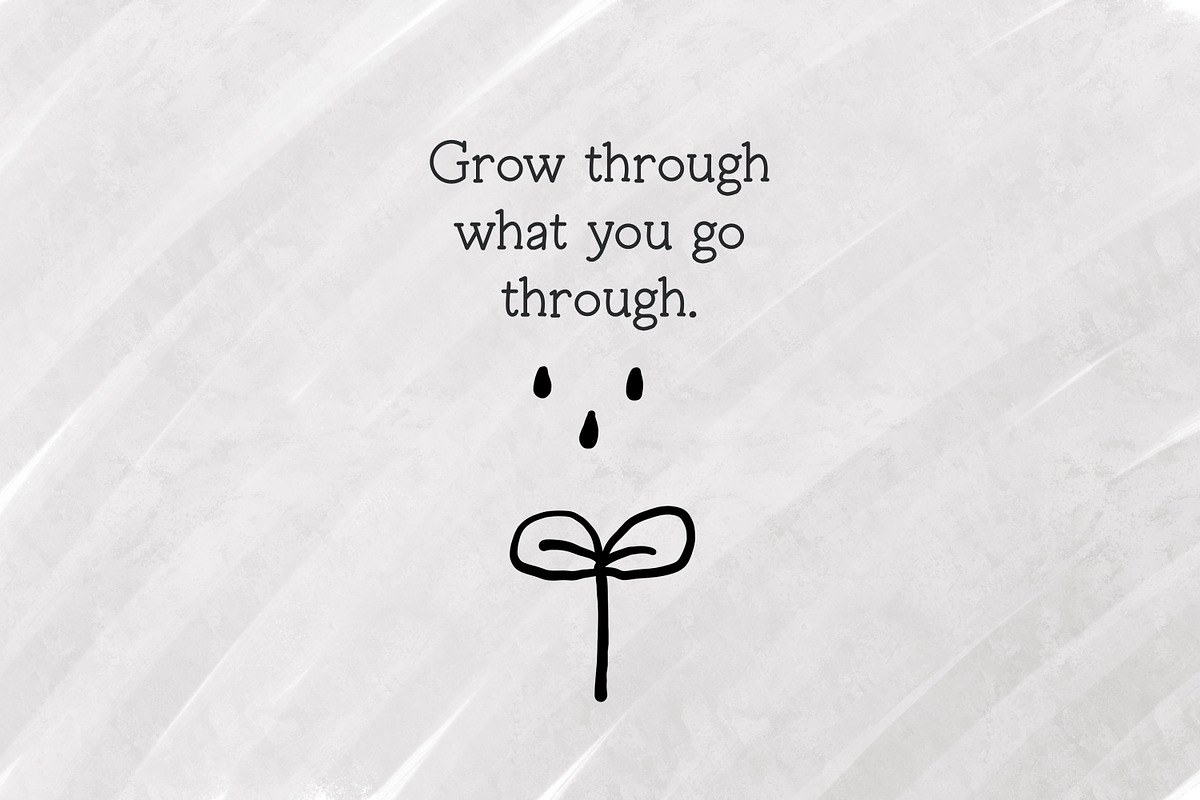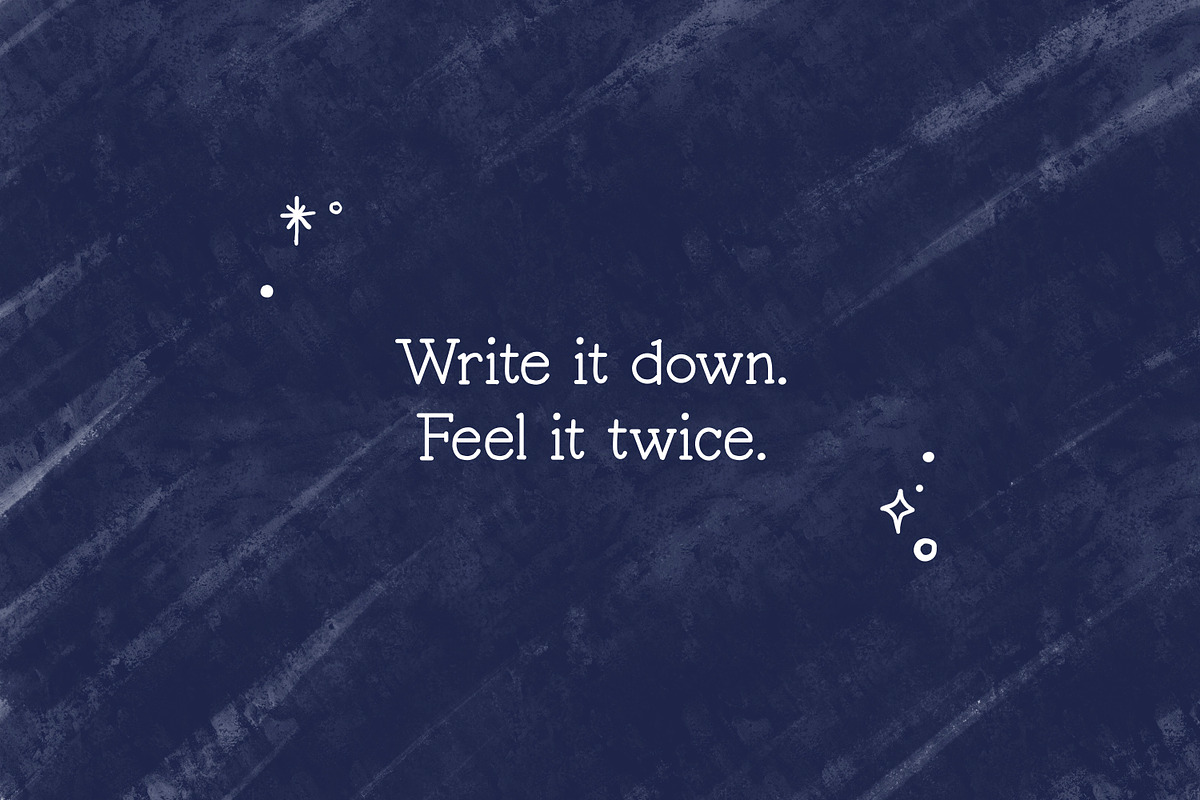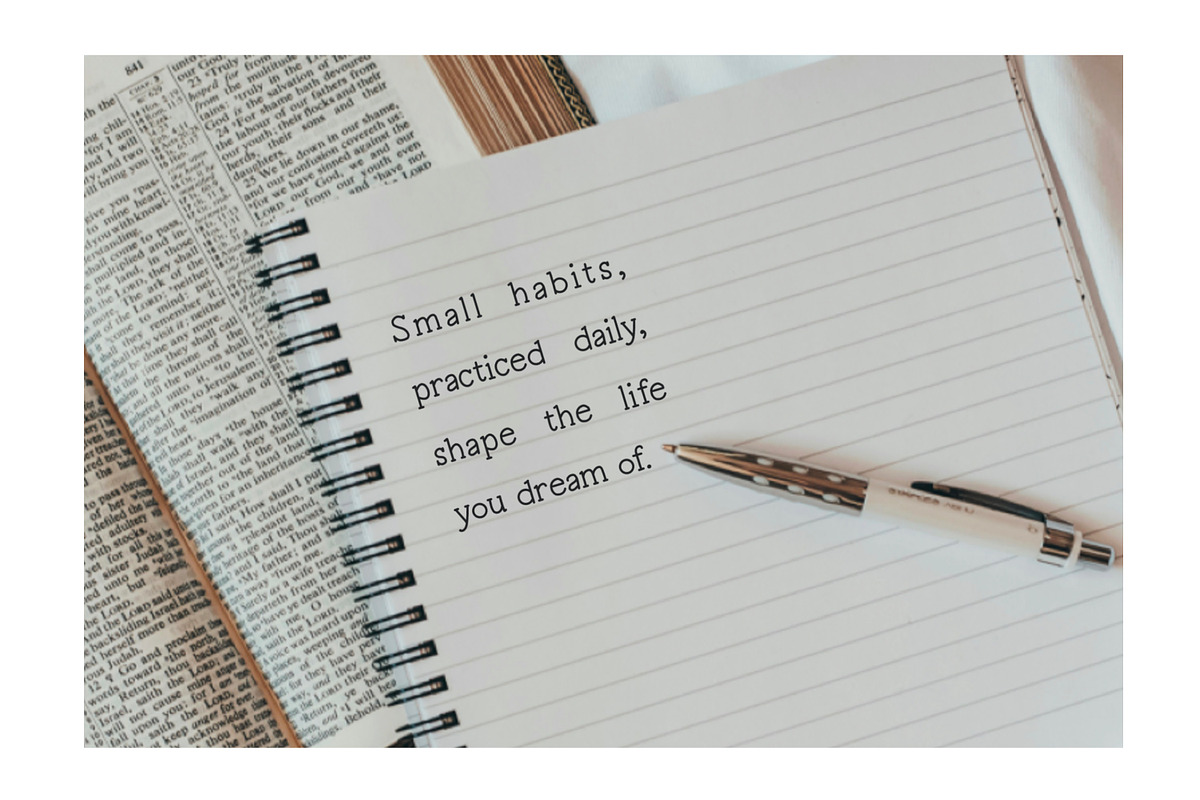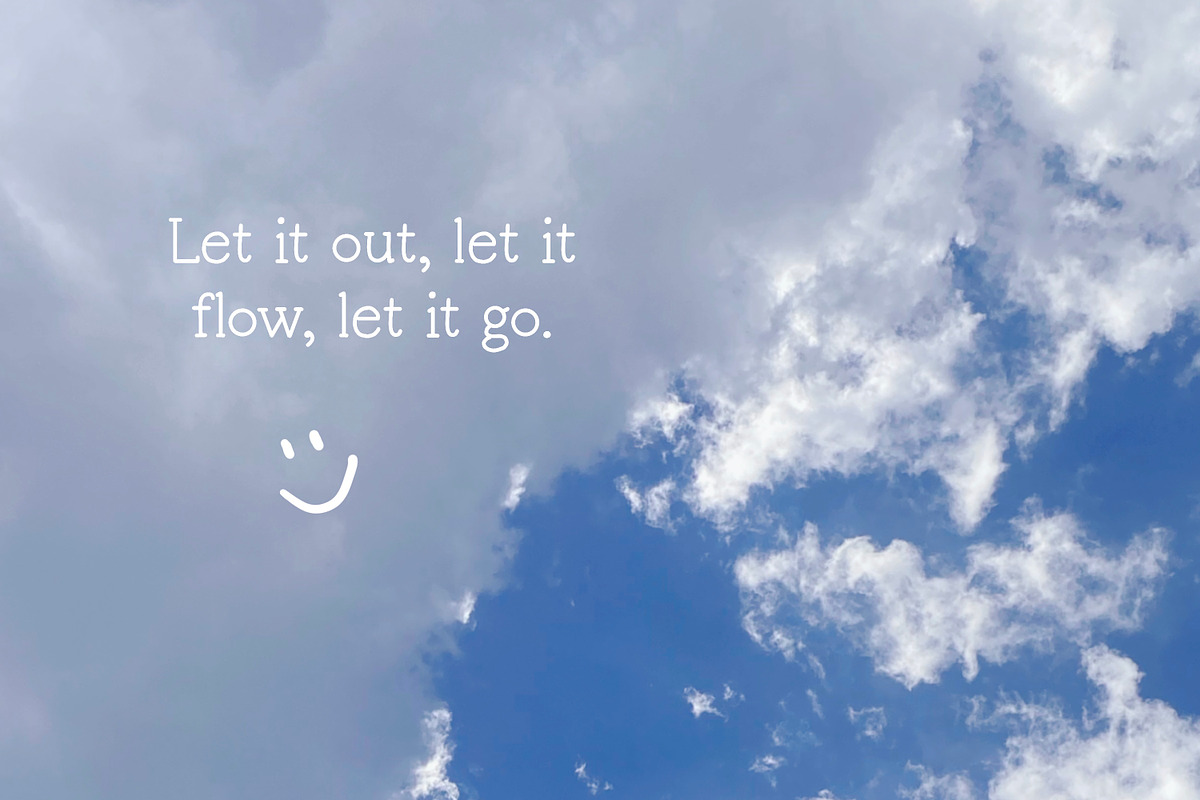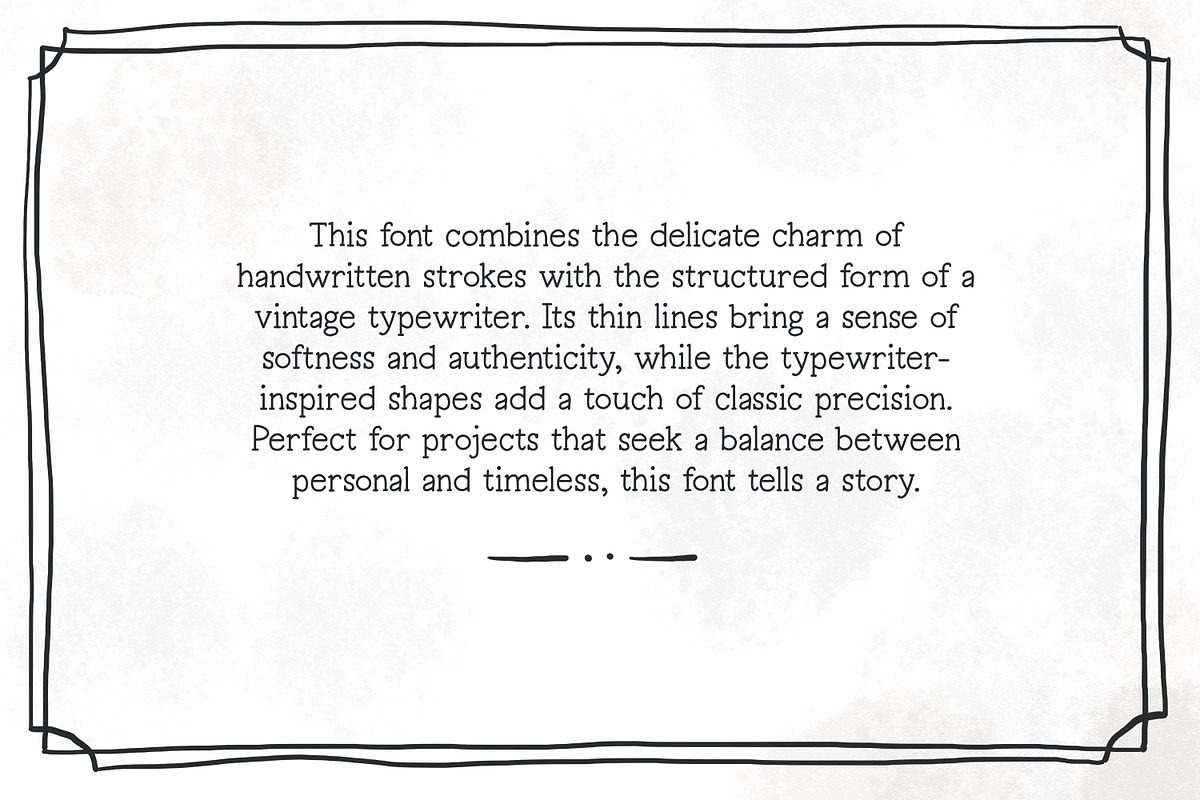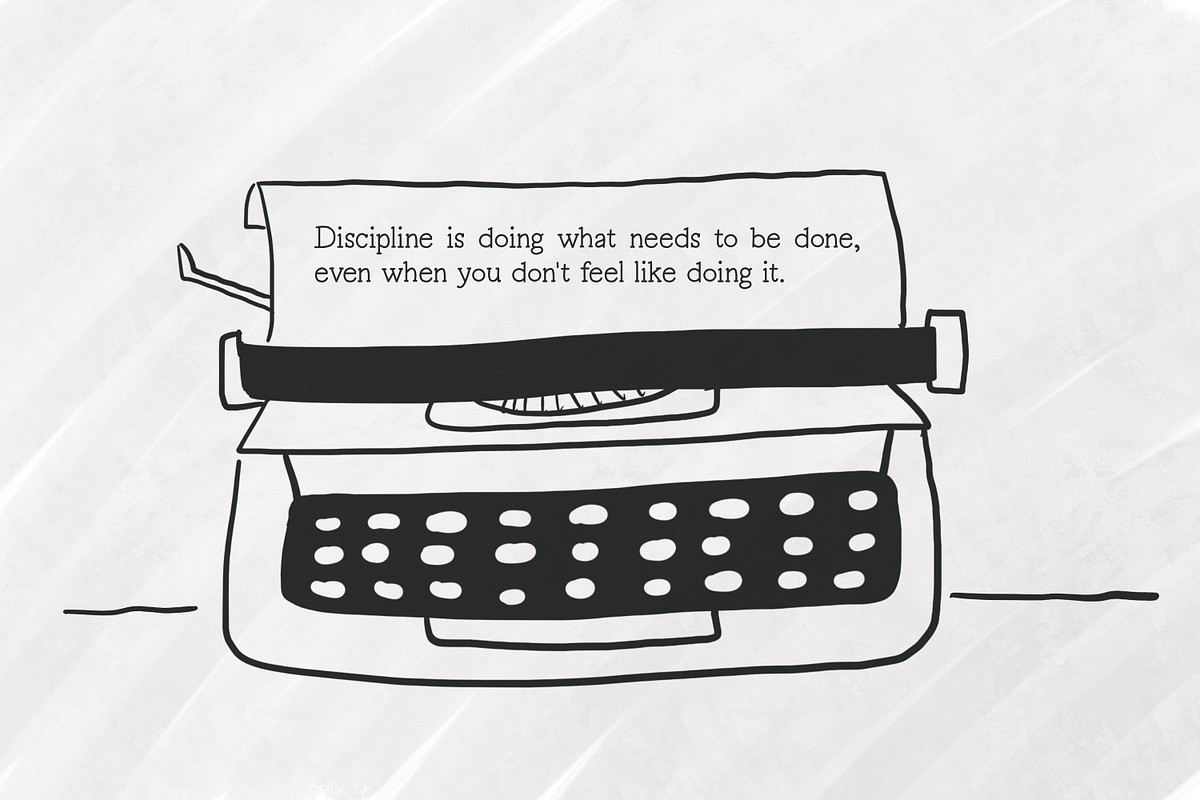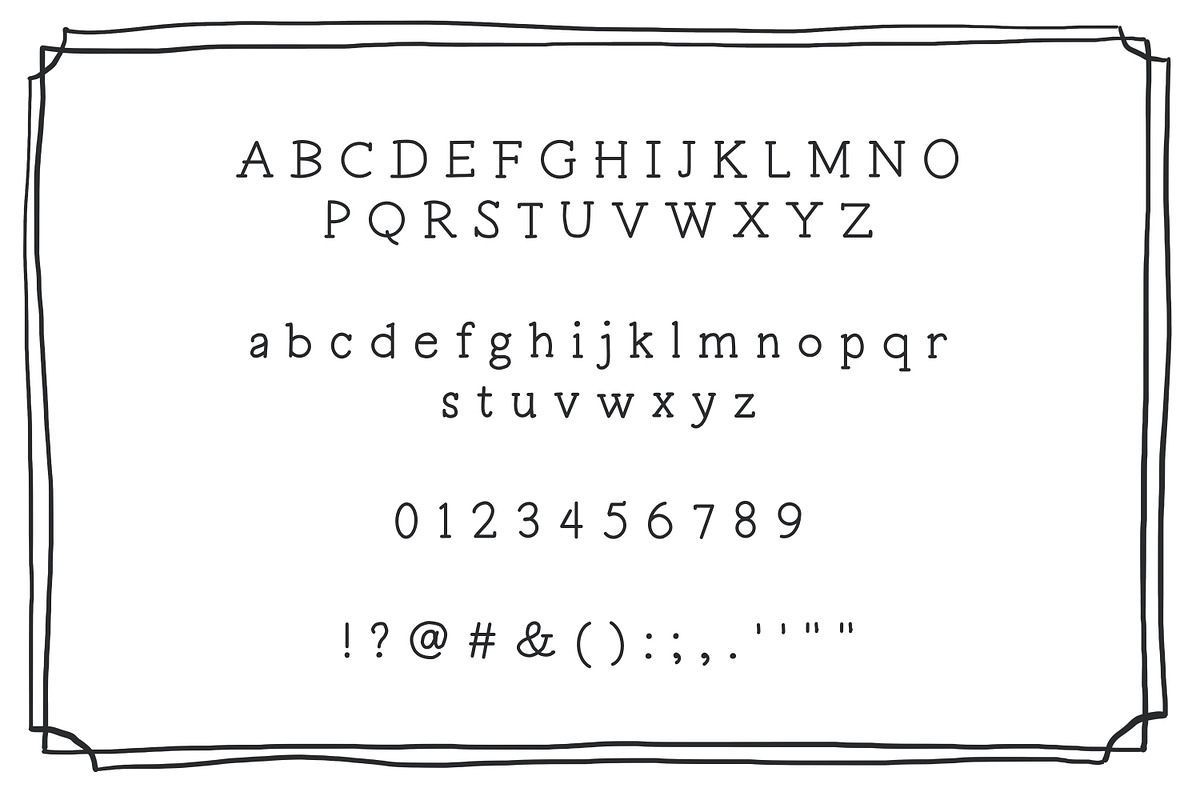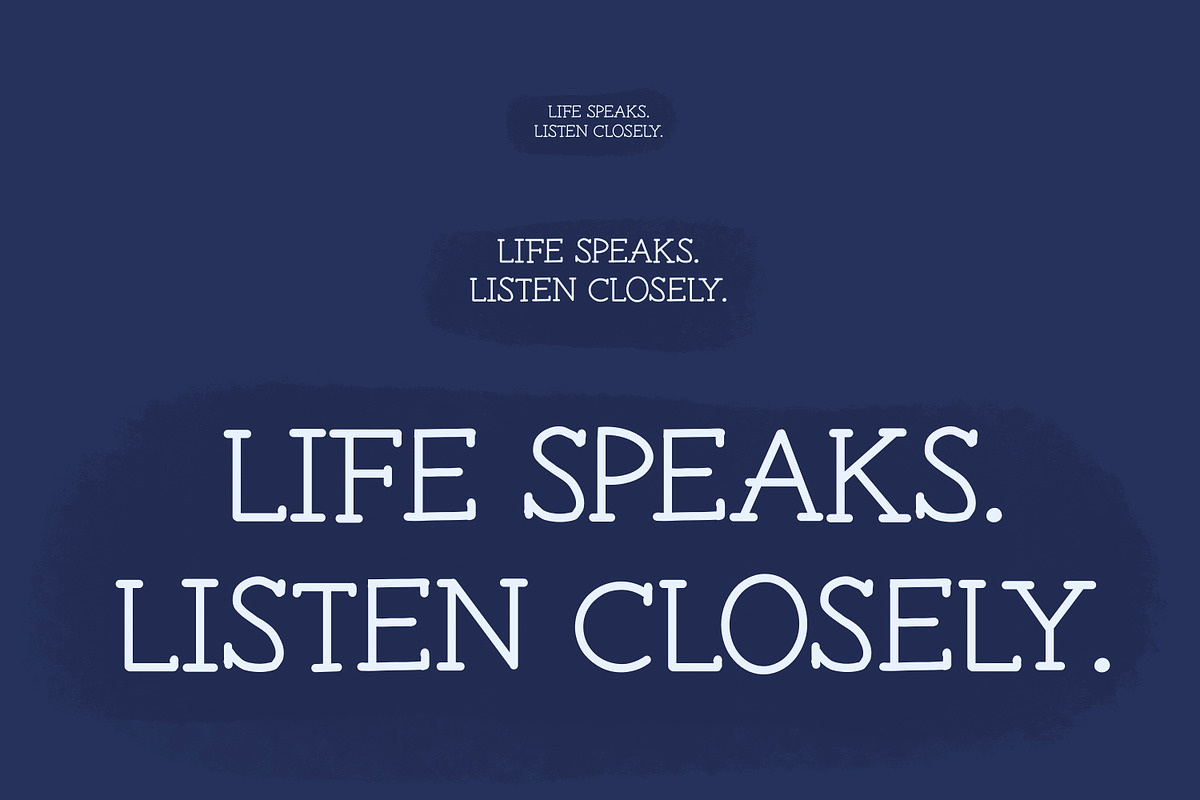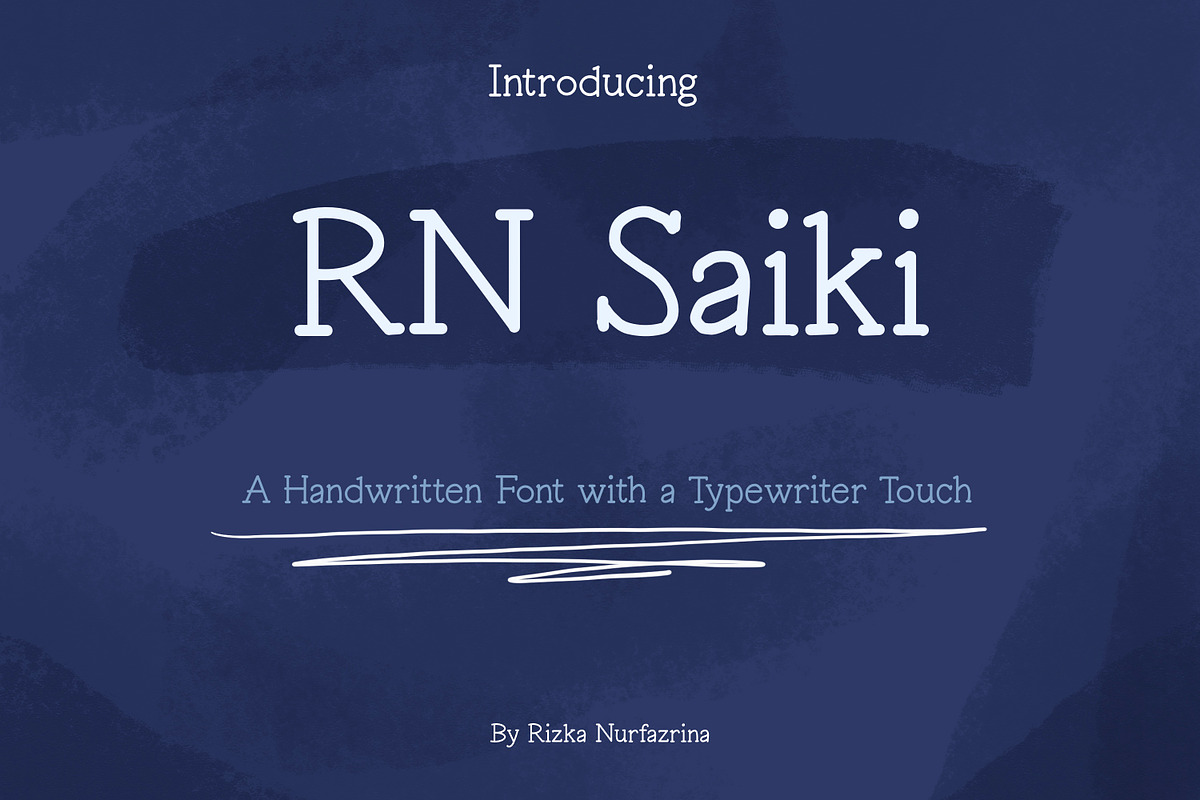
RN Saiki - Handwriting font
Say hello to RN Saiki! This font blends the charm of natural handwriting with the nostalgic feel of a vintage typewriter. The slightly irregular strokes and subtle texture give it a warm, handcrafted look — perfect for adding a human touch to your designs. It carries both a personal and retro vibe, making it versatile for many creative projects. Perfect for:
- Branding and logo design
- Book covers and editorial layouts
- Quotes and social media posts
- Vintage-style packaging
- Invitations, greeting cards, and stationery
- Journals and scrapbooking projects